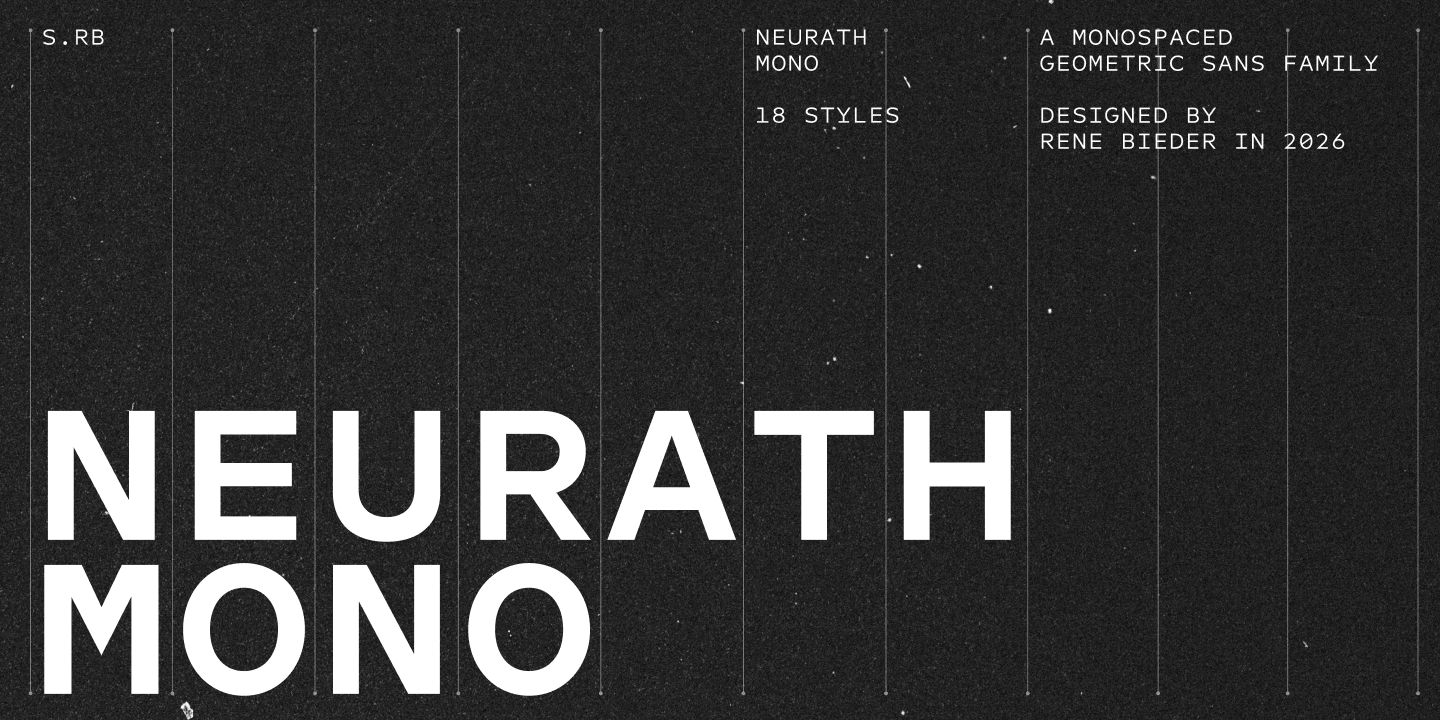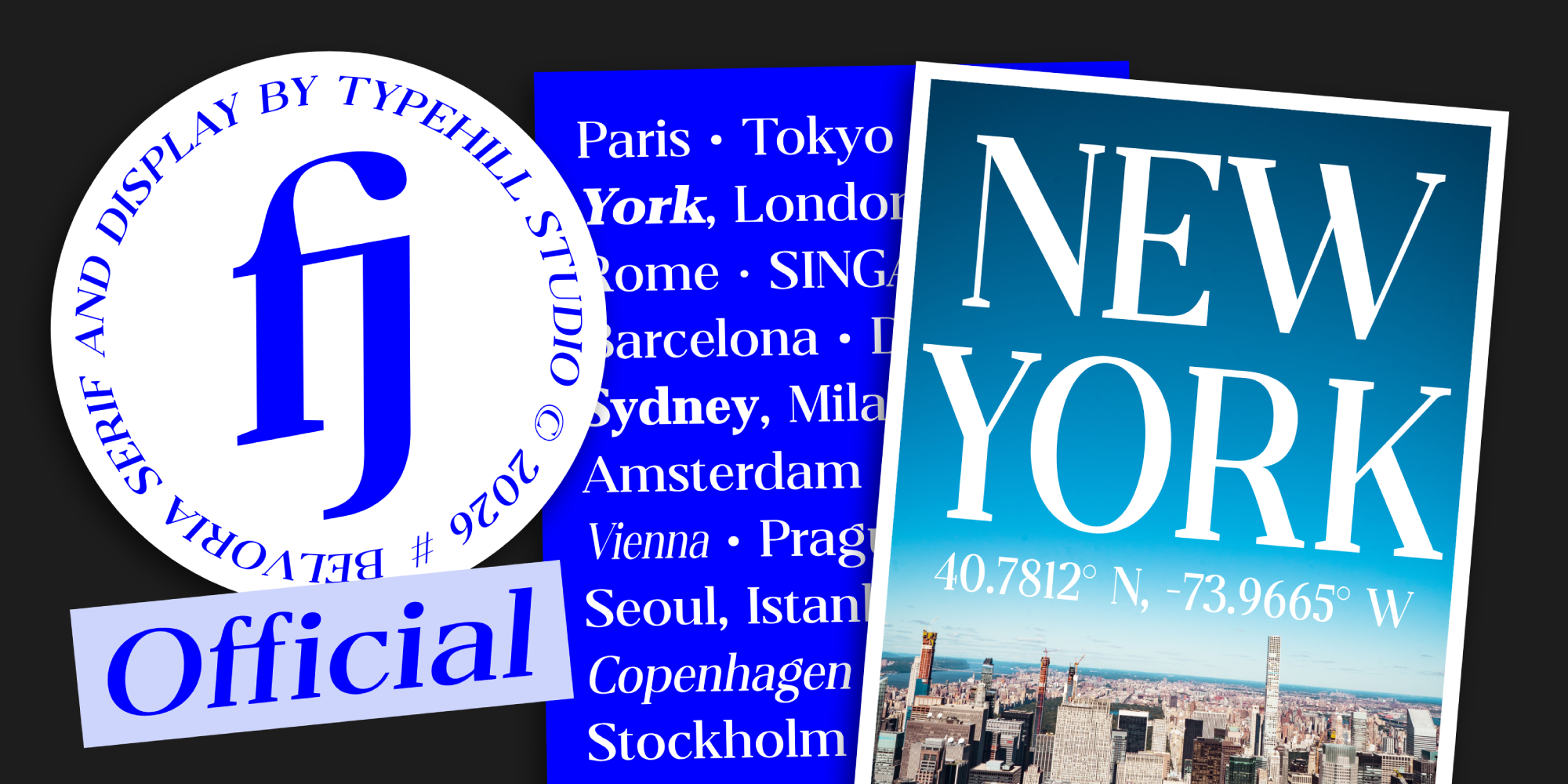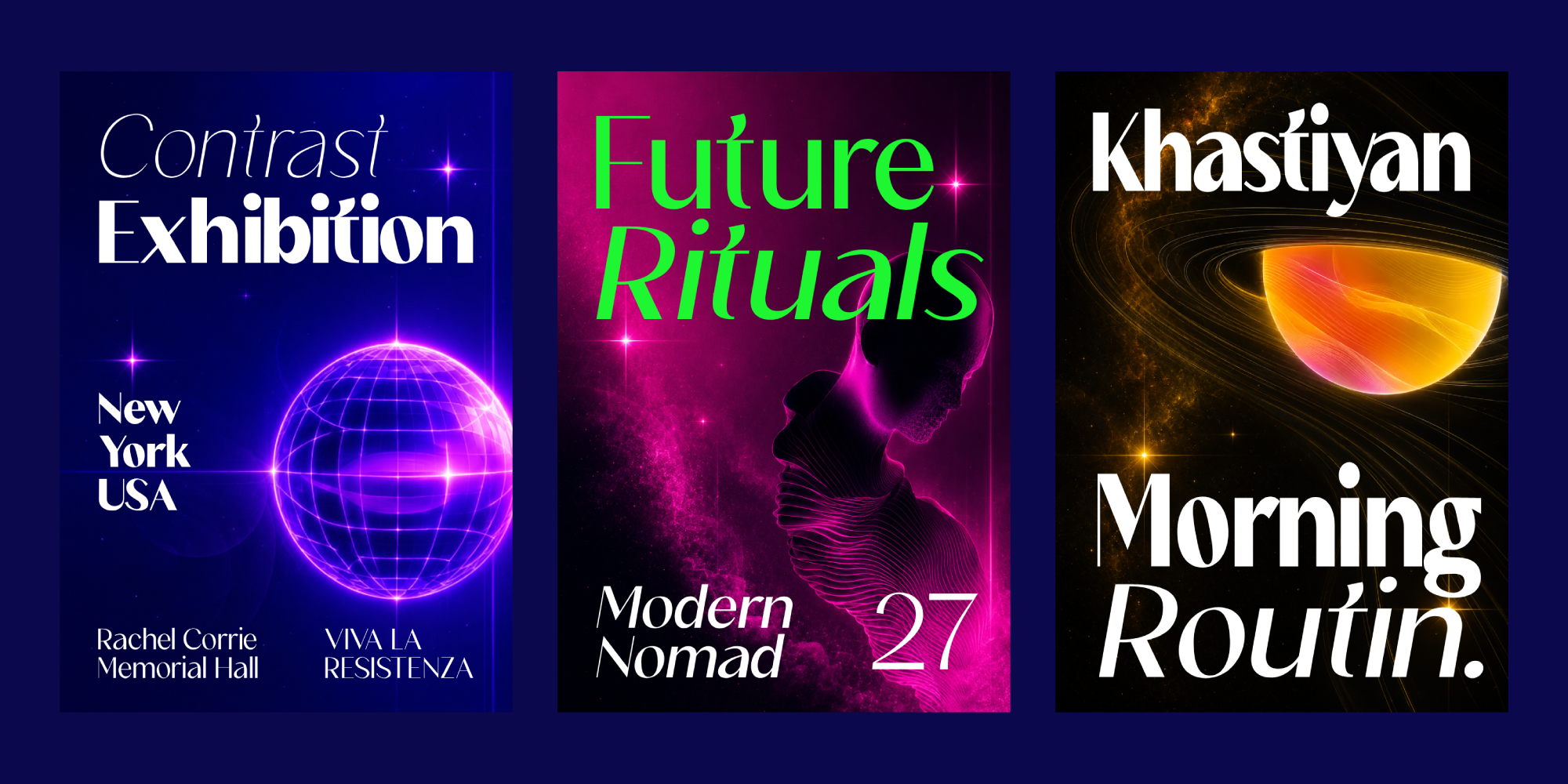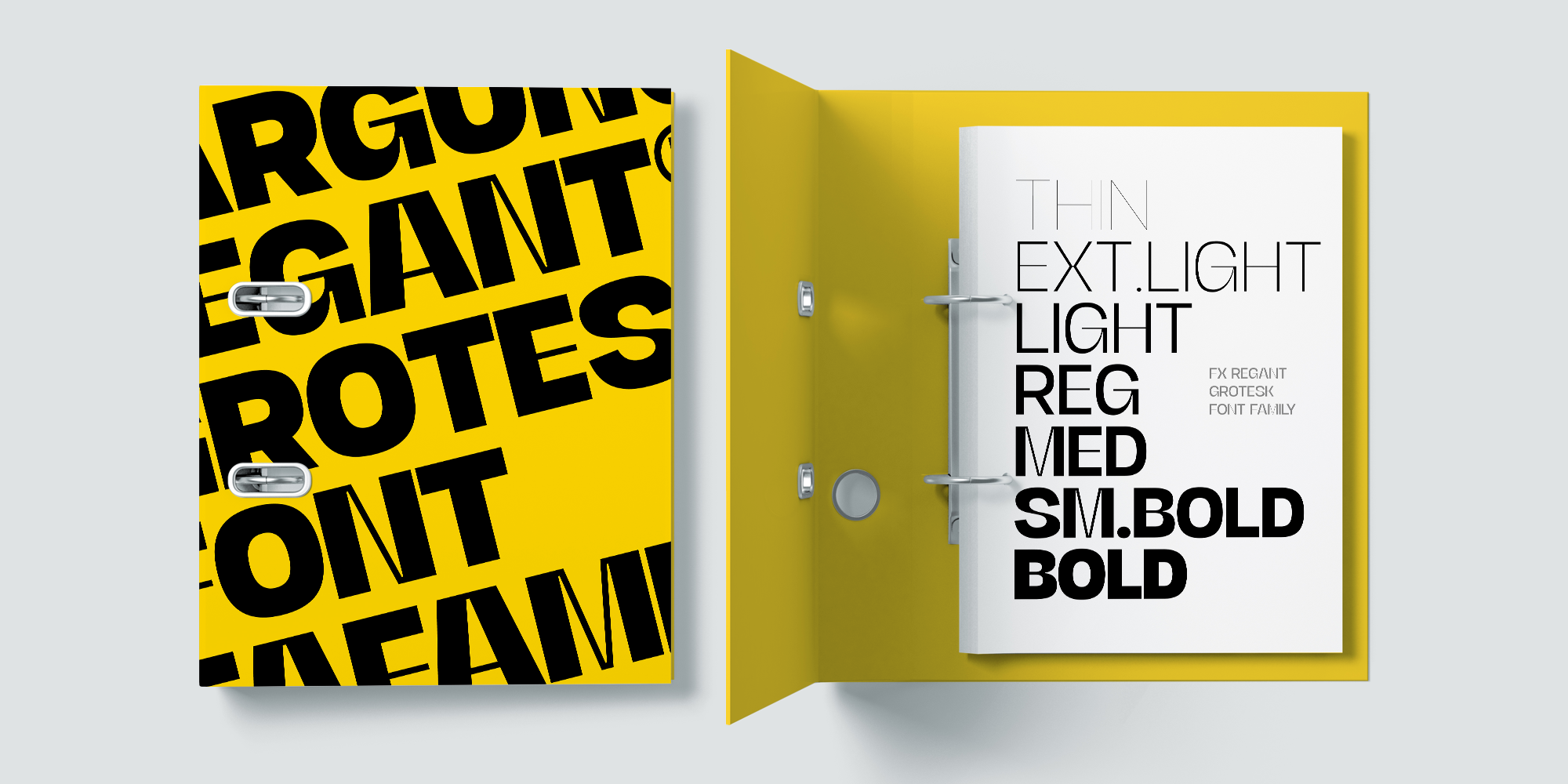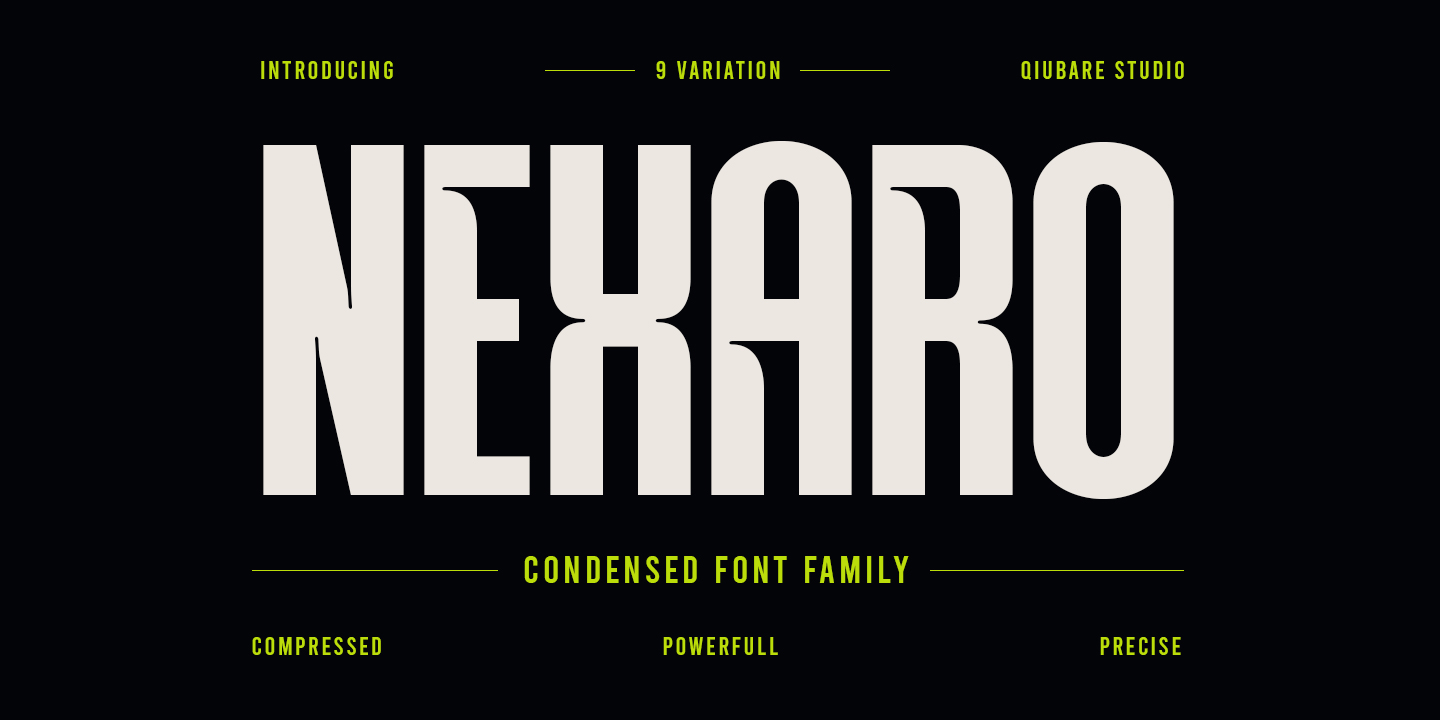
The Neurath Collection expands. Neurath Mono is a geometric monospaced typeface that reconsiders the conventions of fixed-width typography through a more open and approachable design. Developed alongside Neurath, the collection’s proportional counterpart, it builds on the same reinterpretation of Paul Renner’s Futura while adapting it to the constraints of a monospaced system.
Unlike many monospaced typefaces, Neurath Mono features an increased x-height and carefully balanced proportions, allowing round forms and generous spacing to coexist within a fixed-width structure. The result is a typeface that feels more open and less compressed while maintaining the precision expected from monospaced design.
The family includes 18 styles from Thin to Black and a comprehensive set of OpenType features. Stylistic alternates, fractions, and arrows provide the flexibility required for interface design, branding, editorial typography, coding environments, and display use.
To improve readability in text sizes, punctuation and diacritics were drawn slightly larger than usual, increasing clarity in continuous reading. At larger sizes, these details become a distinctive feature of the design, contributing to the family’s character without dominating the overall composition.
Belvoria is a sophisticated variable serif typeface that blends timeless elegance with contemporary flexibility. Designed for modern branding, editorial design, luxury packaging, and premium visual identities, Belvoria delivers refined letterforms with graceful proportions and exceptional readability.
Built with a powerful variable system, Belvoria offers extensive customization across multiple design axes, allowing designers to seamlessly transition from delicate text settings to commanding display typography. Its carefully crafted serif details, balanced contrast, and expressive italics create a versatile family suitable for both classic and modern applications.
Khastiyan is a modern sans display typeface crafted to make a bold and memorable statement. Combining clean geometric construction with elegant curves and distinctive letterforms, it delivers a sophisticated balance between contemporary minimalism and expressive personality. Designed for impactful visual communication, Khastiyan excels in branding, headlines, advertising, packaging, and editorial design. Its strong presence and refined details create a striking aesthetic that remains highly readable across a variety of creative applications.
FX Regant is a display grotesk typeface crafted for modern branding and impactful typography. With its strong geometric forms, confident presence, and refined details, FX Regant is perfect for logos, headlines, posters, editorial design, and contemporary visual identities. Designed to adapt seamlessly from clean minimal layouts to expressive creative projects, Regant delivers both versatility and character in every weight.
Nexaro is a modern condensed display font family engineered for designers who demand impact, precision, and versatility. Crafted with a bold geometric structure and sharp vertical rhythm, Nexora delivers a powerful visual voice across branding, posters, editorial layouts, sports graphics, fashion campaigns, UI interfaces, packaging, and futuristic visual systems.